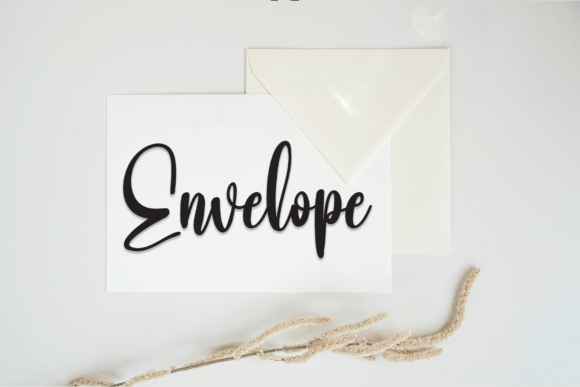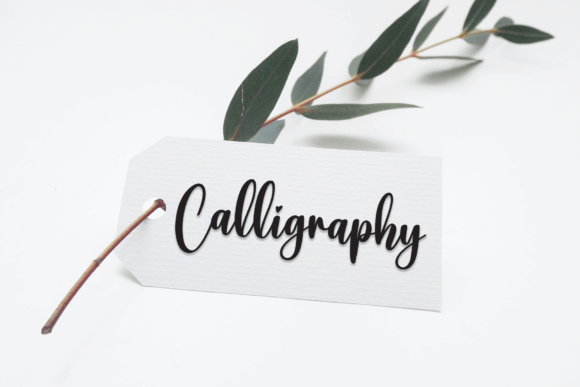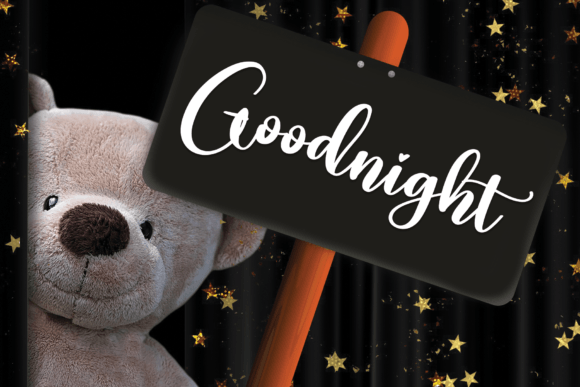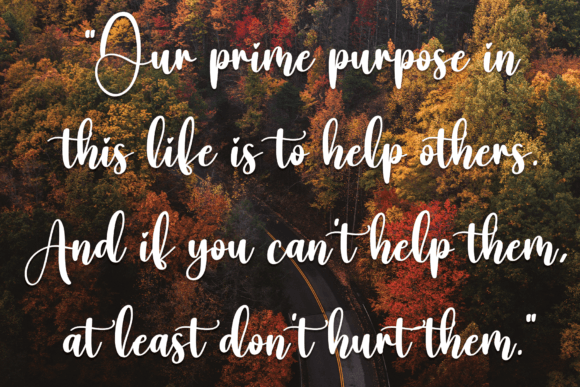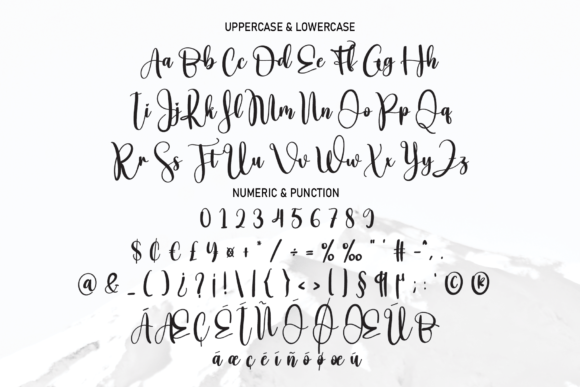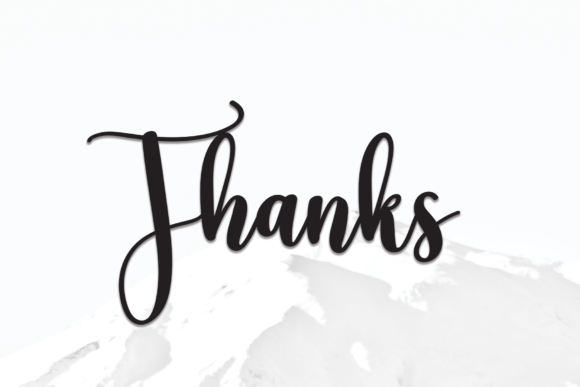
The Magic of Bubbly Font: Bringing Handwritten Charm to Your Designs
Have you ever found yourself scribbling down a few ideas in a notebook, only to realize that the simple act of putting pen to paper has sparked a wave of creative energy? That’s exactly what happened to me the other day, and it got me thinking about the power of handwritten typography in design.
Enter the Bubbly Font, a font that perfectly captures the whimsical charm of handwritten script. With its playful, bubbly letters, this font is designed to add a touch of personality to any project – from wall displays and wedding invitations to social media posts and product packaging.
For designers, the Bubbly Font is a valuable asset, offering a unique way to convey emotion and add visual interest to a design. Whether you’re working on a branding project or a one-off design, this font is sure to bring a smile to your client’s face and make their project stand out from the crowd.
Bubbly Font Key Features
- Font Style: Bubbly Font is a playful, cursive script font, ideal for creating a whimsical and fun atmosphere in designs.
- Unique Characteristics: Bubbly Font features a dynamic, hand-drawn feel with varying line widths, creating a sense of movement and energy in text.
Bubbly Font Review
I’ve had the chance to work with the Bubbly Font, and here’s my honest take.
- The Bubbly Font has a unique, playful personality that can add a lot of character to a design. It’s perfect for projects that need a lighthearted, whimsical feel.
- The font is highly legible, even at smaller font sizes. This makes it a great choice for body text or for designs where readability is a top priority.
- The Bubbly Font is available in a wide range of weights, from light to bold, which gives designers a lot of flexibility when it comes to choosing the right style for their project.
- The Bubbly Font can be a bit too playful for some designs. It may not be the best choice for projects that need a more serious or professional tone.
- The font may not be suitable for text-heavy designs, as it can start to feel overwhelming or cluttered at larger font sizes.
Overall, the Bubbly Font is a great addition to any designer’s toolkit. While it may not be the best choice for every project, it’s perfect for designs that need a little extra personality and whimsy.
Tips for Getting the Most Out of Bubbly Font
To get the most out of Bubbly Font, consider the following tips:
- Use Bubbly Font to add a playful touch to your designs.
- Pair Bubbly Font with bold or italic fonts to create contrast.
- Experiment with different font sizes and colors to achieve the desired effect.
Common Use Cases for Bubbly Font
Bubbly Font is commonly used in:
- Playful advertising campaigns.
Alternatives to Bubbly Font
Great Vibes is a fun, handwritten font that is perfect for creating a playful and energetic atmosphere. It is ideal for use in social media, advertisements, and other marketing materials where a lighthearted tone is desired.
Compared to Bubbly Font, Great Vibes has a more organic feel and is better suited for body text, while Bubbly Font is more commonly used for titles and headings.
Carolyna Pro is a modern, script font that is great for creating a sophisticated and elegant look. It is perfect for use in high-end branding, invitations, and other materials where a touch of luxury is desired.